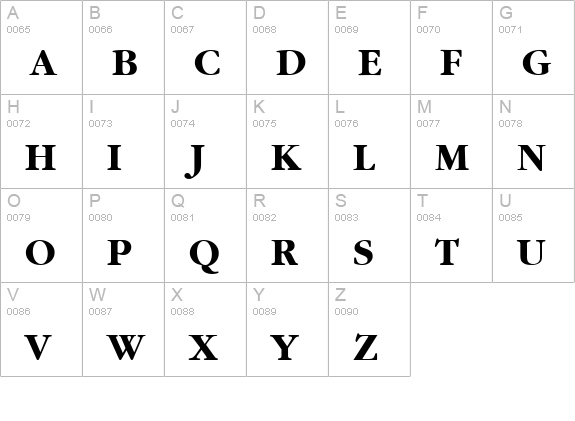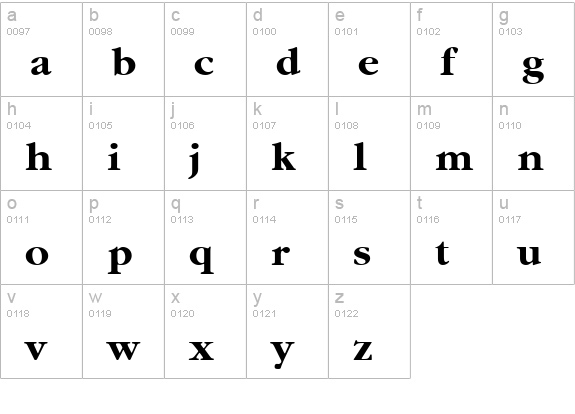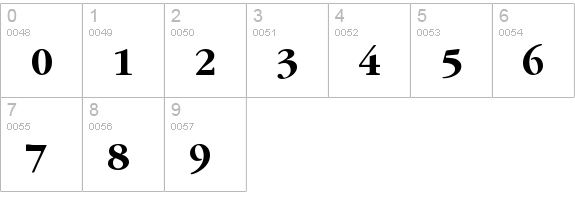
Gatineau Bold Font Details
Gatineau Bold is a strong, high-contrast variant in the Gatineau typeface family \xE2\x80\x94 well suited to headlines, attention-grabbing titles, and strong calls-to-action.
Gatineau Bold is a striking and versatile font that exudes confidence and modernity. With its bold and clean lines, this typeface commands attention and makes a bold statement in any design project. Perfect for headlines, posters, logos, and more, Gatineau Bold is sure to make a strong impact. The best part? Gatineau Bold is available for free download at FontsMarket.com. This means you can easily incorporate this dynamic font into your designs without breaking the bank. Don't miss out on the opportunity to elevate your projects with the bold and impactful Gatineau Bold font - get your free download today!